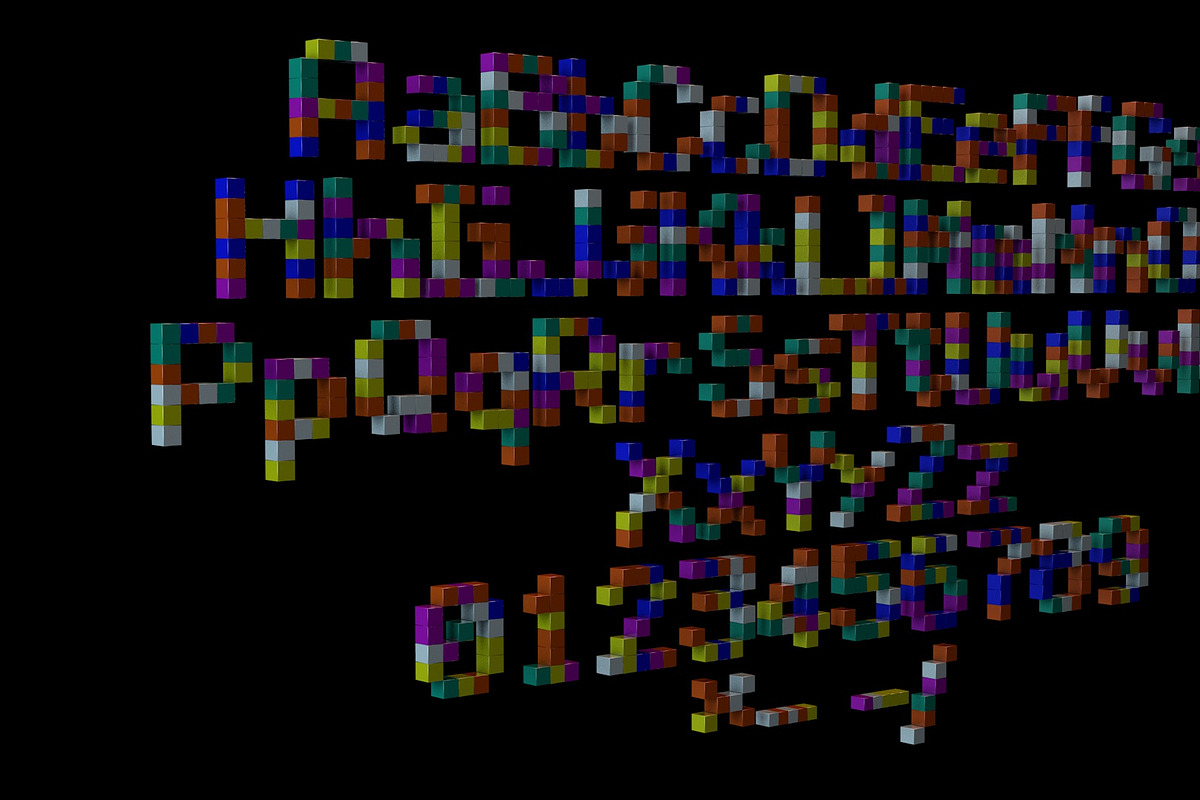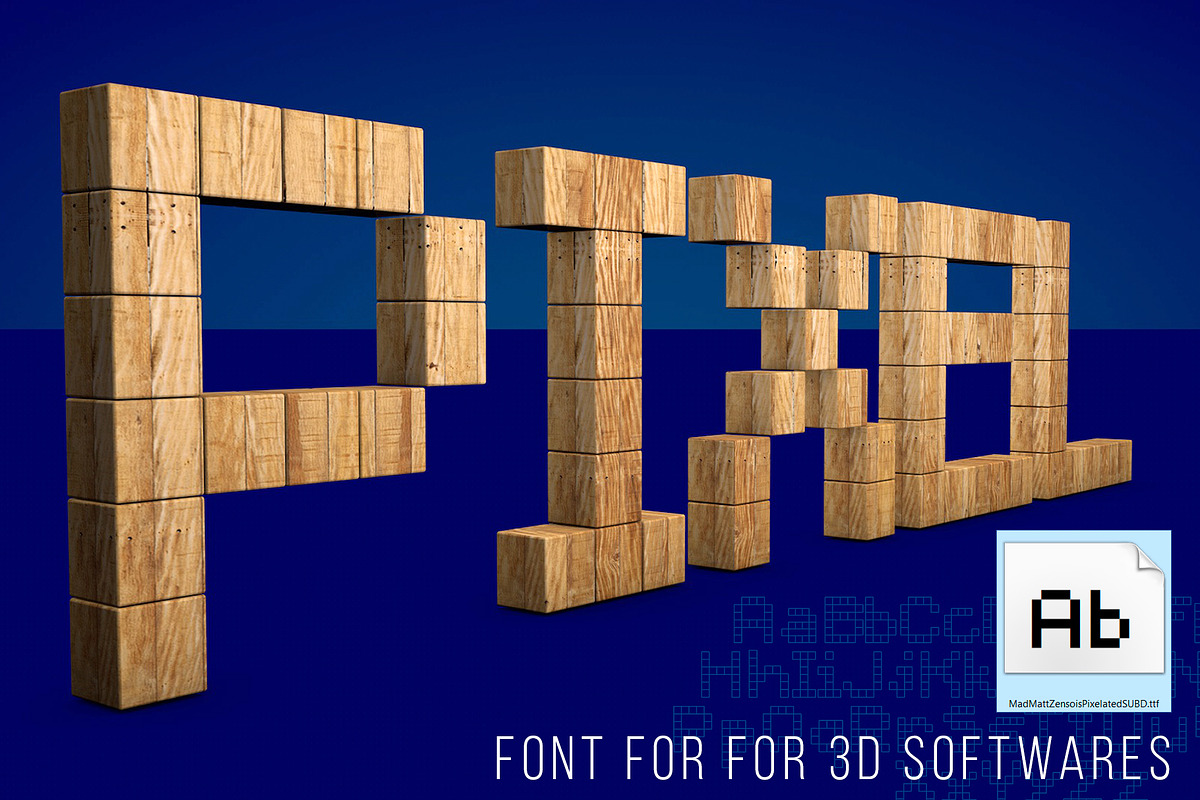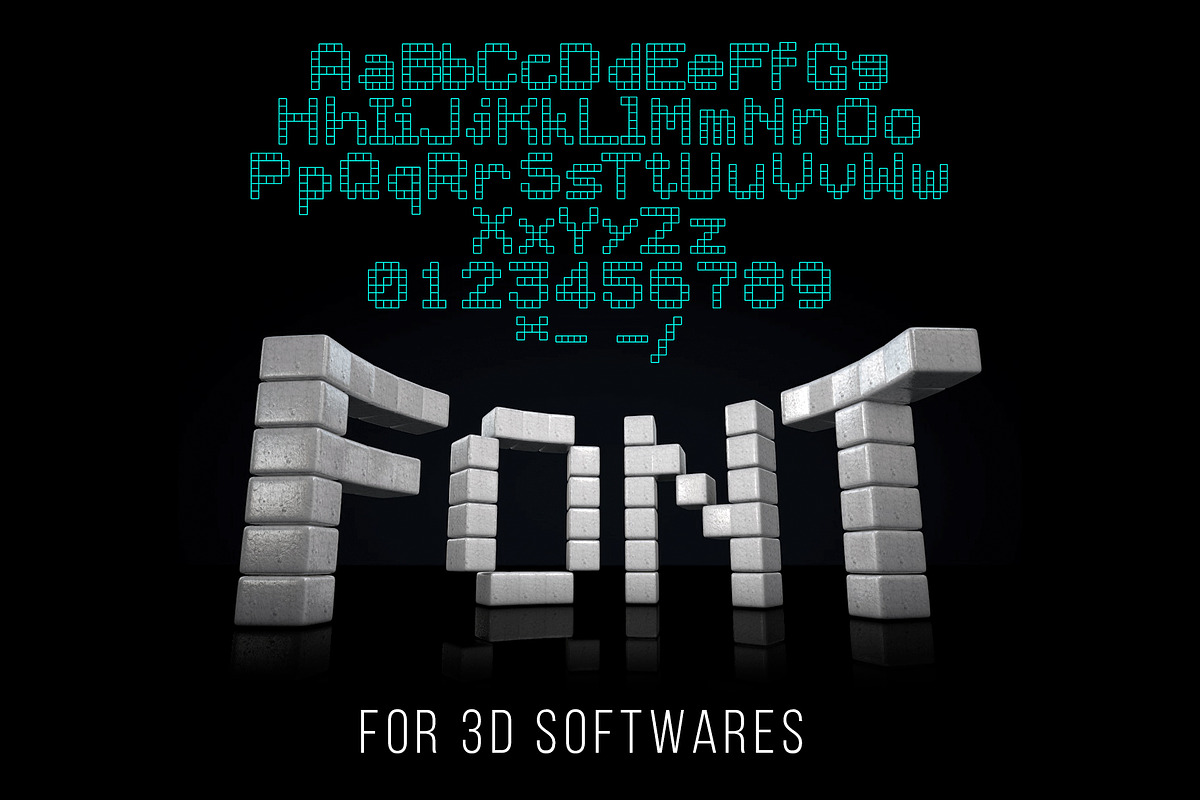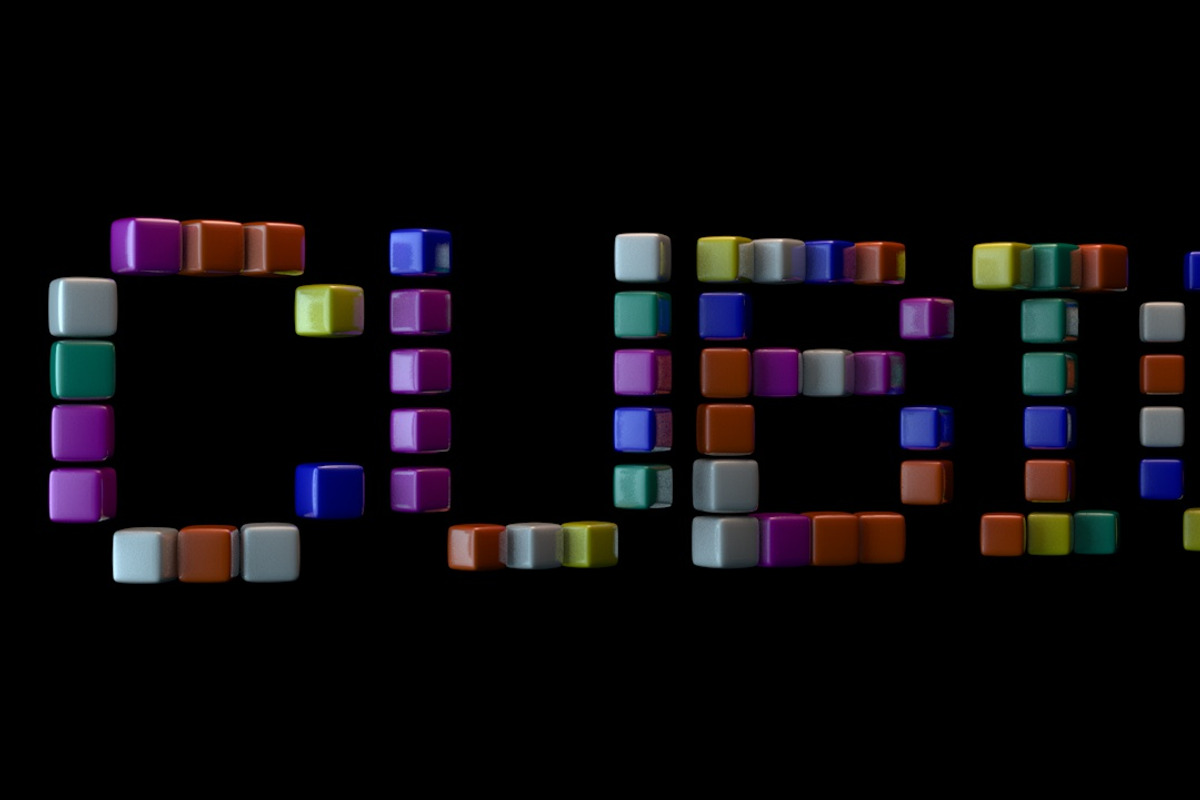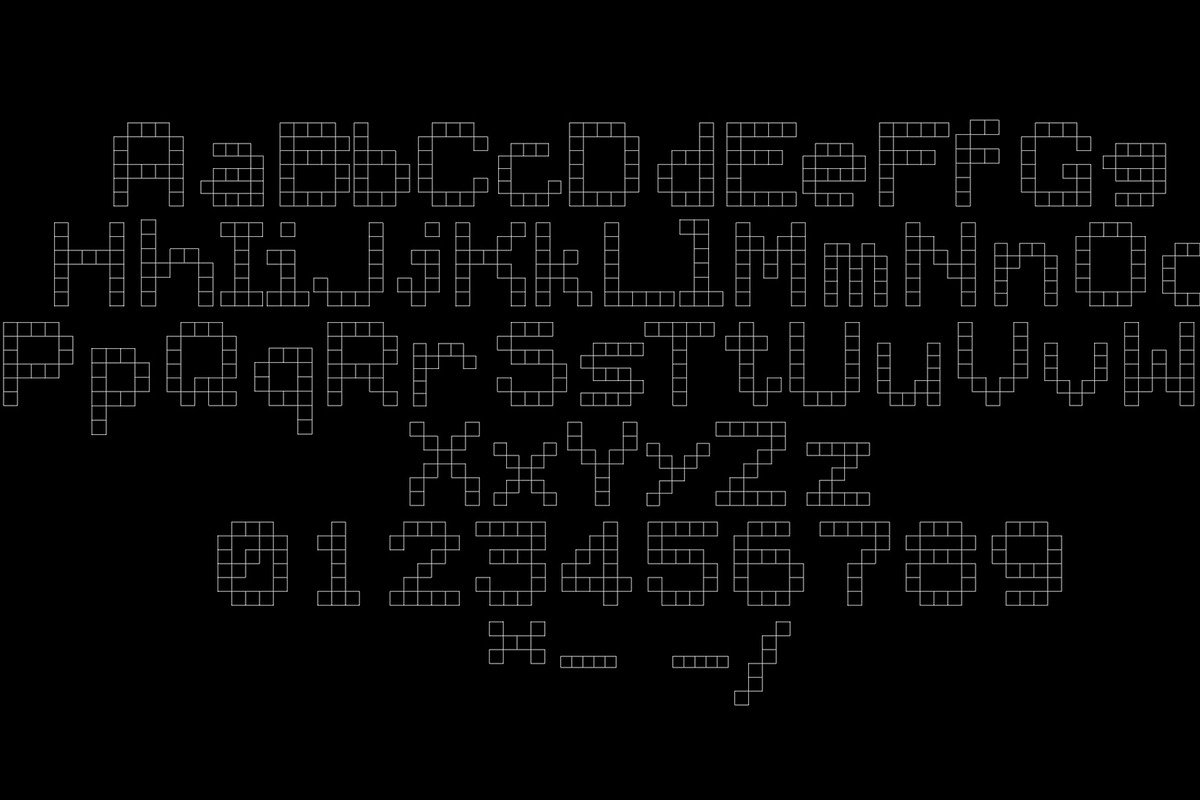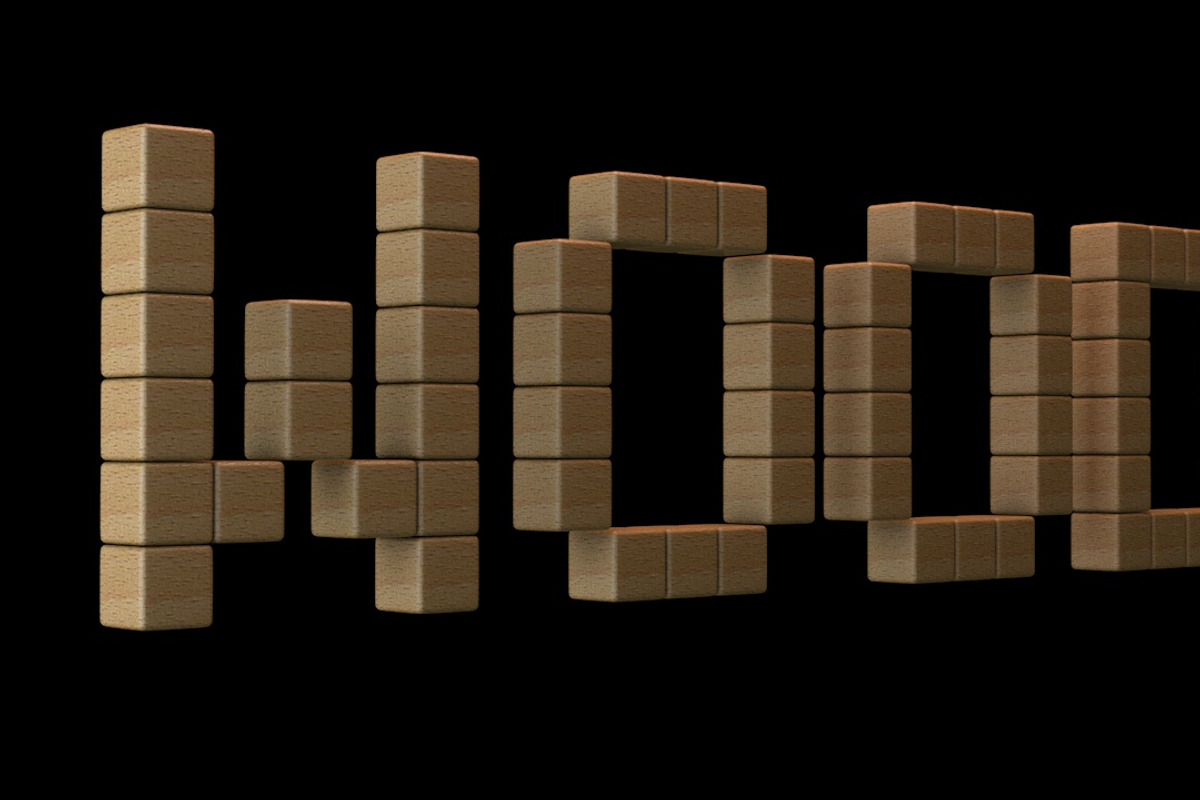
MS Pixelated Font for 3D Apps
MS Pixelated is a True Type Font specially modified and re-topologized for 3D Applicationssuch as Cinema 4D, Houdini, Blender and etc...
Why MS Pixelated Font for 3D Apps is worth a look
MS Pixelated Font for 3D Apps by Creative Graphics fits naturally into Branding, posters, packaging, typography.